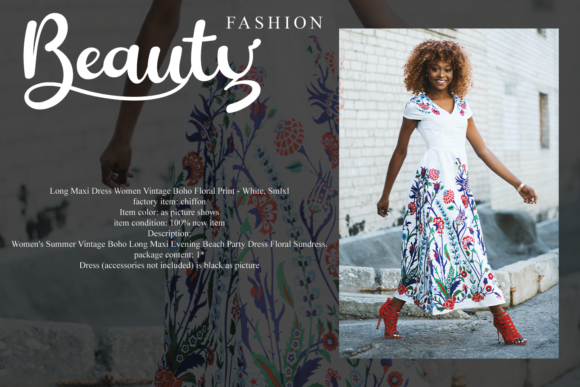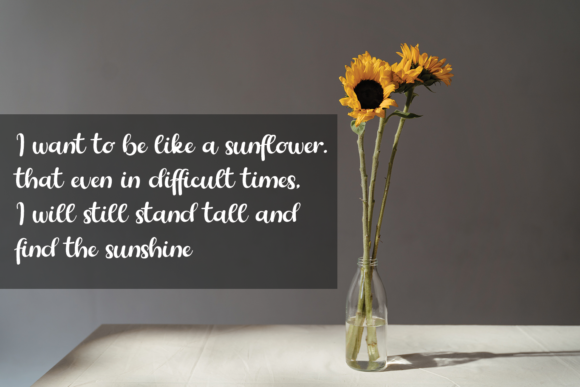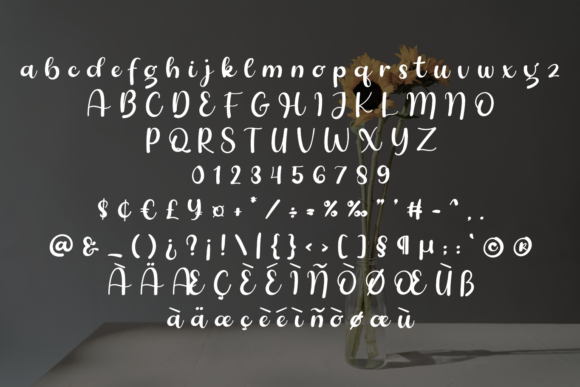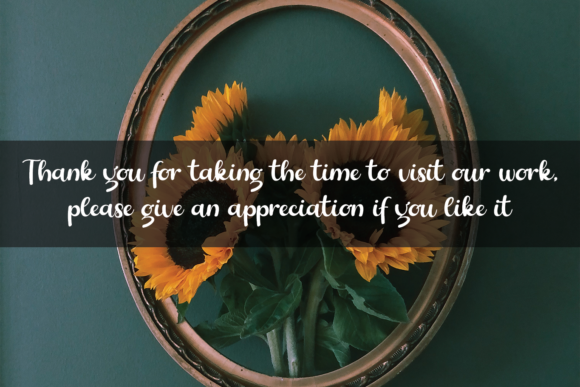
Bluebery Font
About Bluebery Font
Bluebery is a flowing handwritten font, described by an elegant touch, perfect for your favorite projects. Fall in love with its incredibly distinct and timeless style and use it to create spectacular designs!